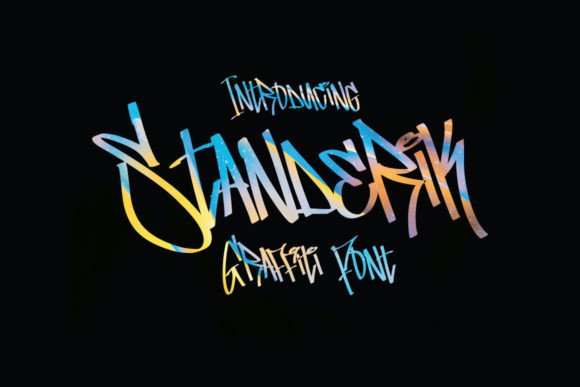
Introducing Standerik Font: The Ultimate Graffiti Display Font
In the world of typography, few fonts have managed to capture the essence of street art and graffiti as effectively as Standerik Font. This display font is specifically designed to bring the flair of typical street art calligraphy style or graffiti tags to your designs. With its bold and edgy aesthetic, Standerik Font is perfect for a wide range of projects, from movies and documentaries to logos, posters, games, book covers, and more.
The Inspiration Behind Standerik Font
Standerik Font draws inspiration from the vibrant and dynamic world of street art and graffiti. The font’s creator aimed to capture the essence of this art form, which is often characterized by its bold lines, vibrant colors, and eclectic style. The result is a font that exudes energy, creativity, and a sense of rebellion.
Key Features of Standerik Font
So, what makes Standerik Font so special? Here are some of its key features:
- 130+ Glyphs: Standerik Font comes with an impressive 130+ glyphs, offering a wide range of characters to choose from.
Uses of Standerik Font
Standerik Font is an incredibly versatile font that can be used in a wide range of projects, including:
- Movies and Documentaries: Add a touch of street art flair to your film or documentary titles with Standerik Font.
- Logos and Branding: Create bold and eye-catching logos that stand out from the crowd with Standerik Font.
- Posters and Flyers: Use Standerik Font to create striking posters and flyers that grab attention.
- Games and Book Covers: Add a touch of edginess to your game or book cover with Standerik Font.
- Headlines and Titles: Use Standerik Font to create bold and attention-grabbing headlines and titles.
Benefits of Using Standerik Font
So, why should you choose Standerik Font for your next project? Here are some benefits of using this amazing font:
- Unique and Creative: Standerik Font offers a unique and creative way to express yourself through your designs.
- Highly Versatile: The font can be used in a wide range of projects, from movies and documentaries to logos and posters.
- Easily Customizable: With its Open Type features and PUA unicode, Standerik Font is easily customizable to suit your design needs.
Tips for Using Standerik Font
Here are some tips for getting the most out of Standerik Font:
- Experiment with Different Sizes: Standerik Font looks great in large sizes, but it can also be used effectively in smaller sizes.
- Play with Colors: The font’s bold and edgy aesthetic lends itself well to bright and bold colors.
- Use it in Combination with Other Fonts: Standerik Font can be used in combination with other fonts to create a unique and interesting design.
Q: What is Standerik Font?
A: Standerik Font is a graffiti display font inspired by typical street art calligraphy style or graffiti tags.